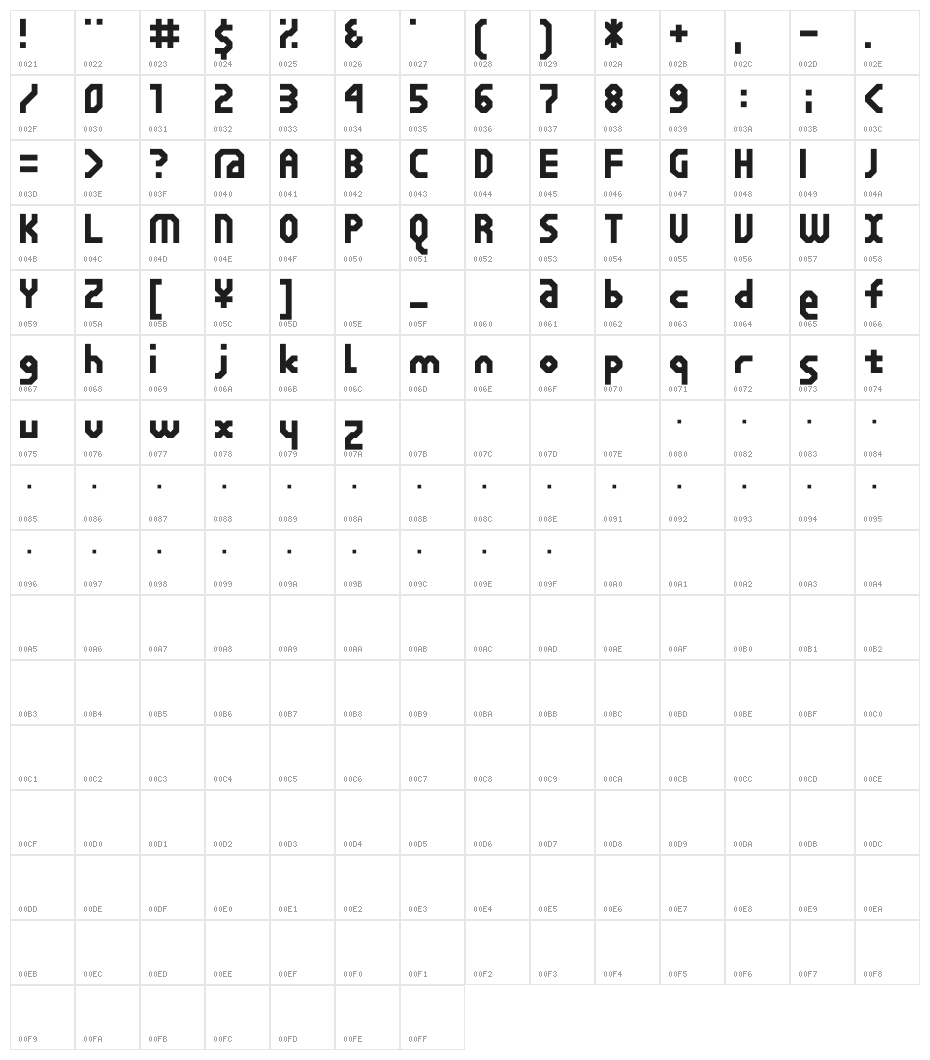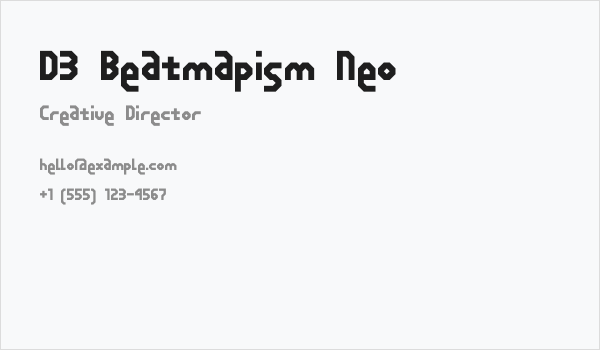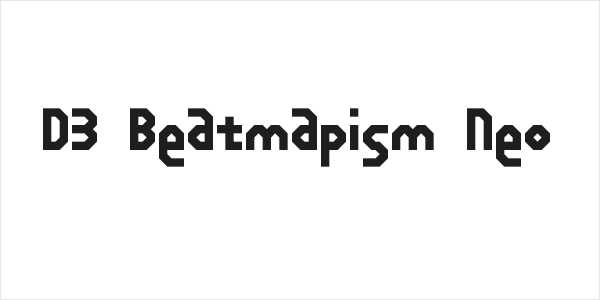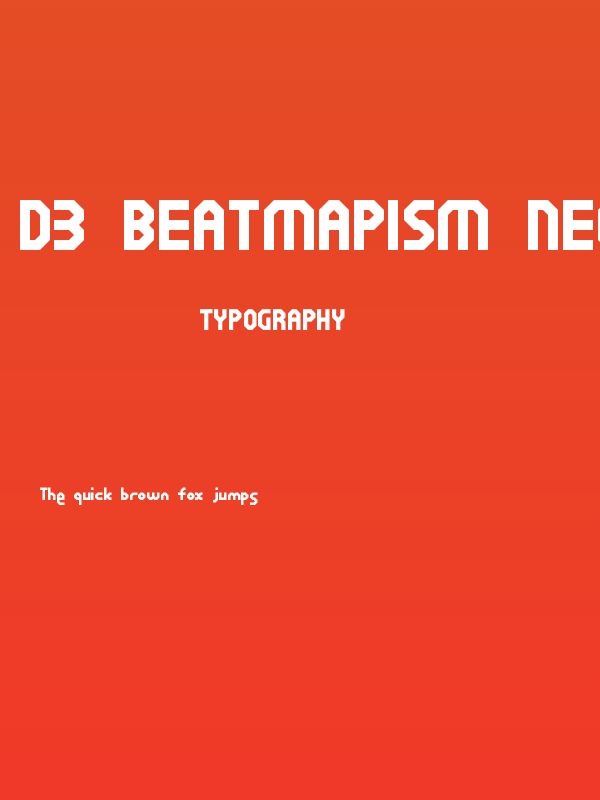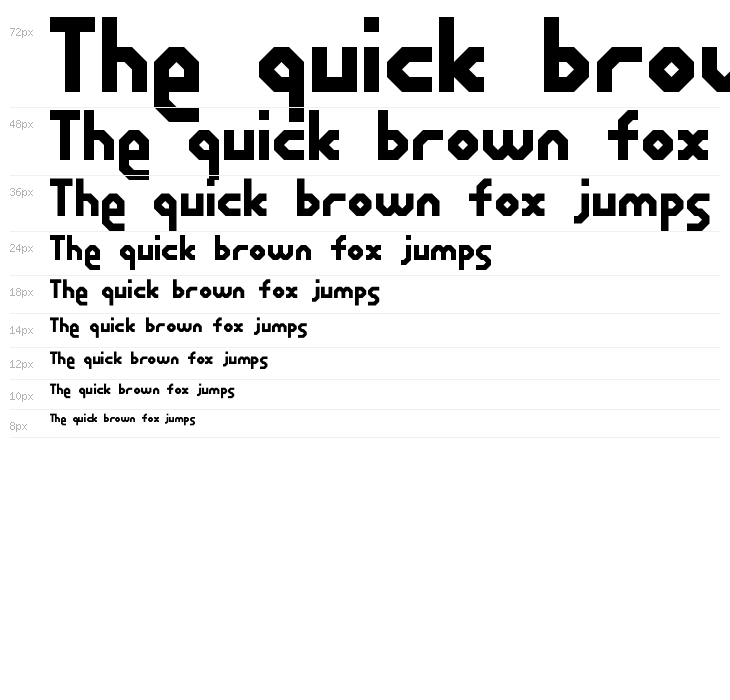
D3 Beatmapism Neo Font
D3 Beatmapism Neo Description
This font features a bold, geometric design with a futuristic and digital aesthetic. The characters are constructed with sharp angles and straight lines, giving them a blocky, pixelated appearance reminiscent of early digital displays or video game graphics. The uppercase and lowercase letters maintain a consistent style, with the lowercase being slightly smaller but equally bold. Numbers and special characters follow the same design principles, ensuring uniformity across all glyphs. The font's unique style makes it stand out, ideal for projects that require a modern, tech-inspired look.
| Proposed Projects | Ideal for video game graphics, tech-themed posters, digital art projects, and modern branding. |